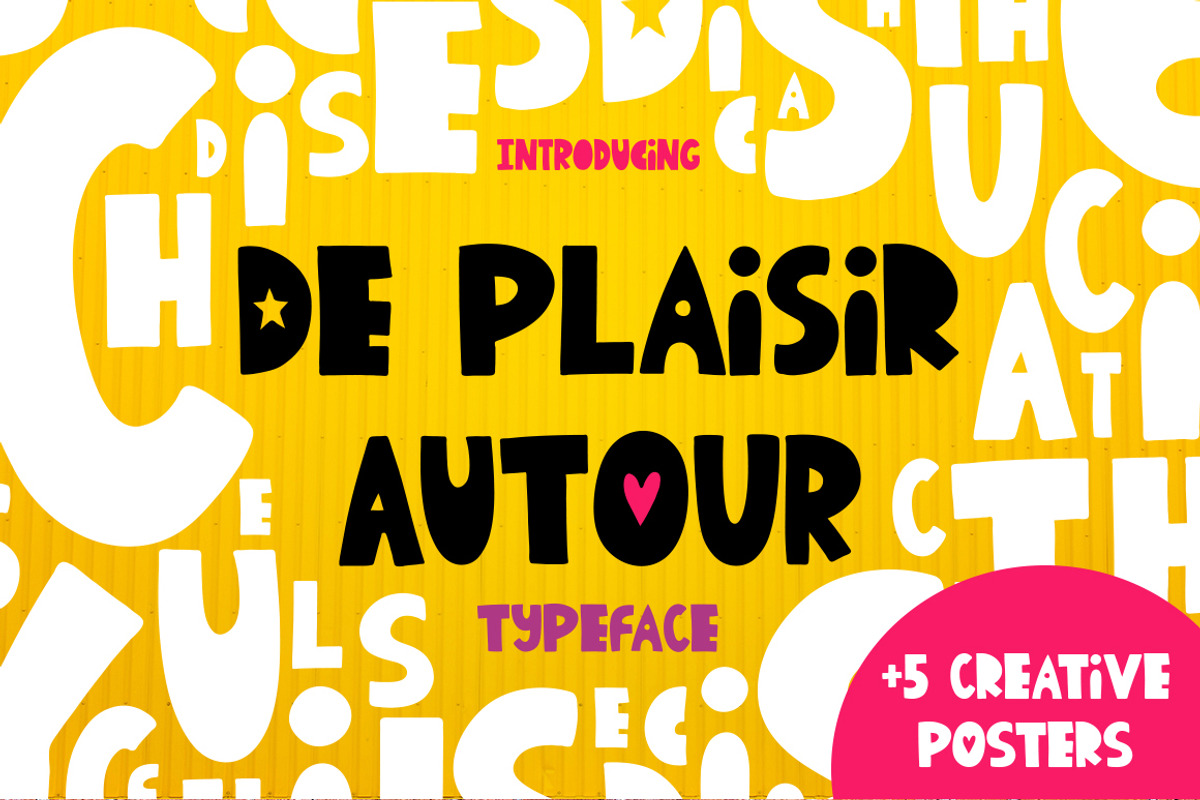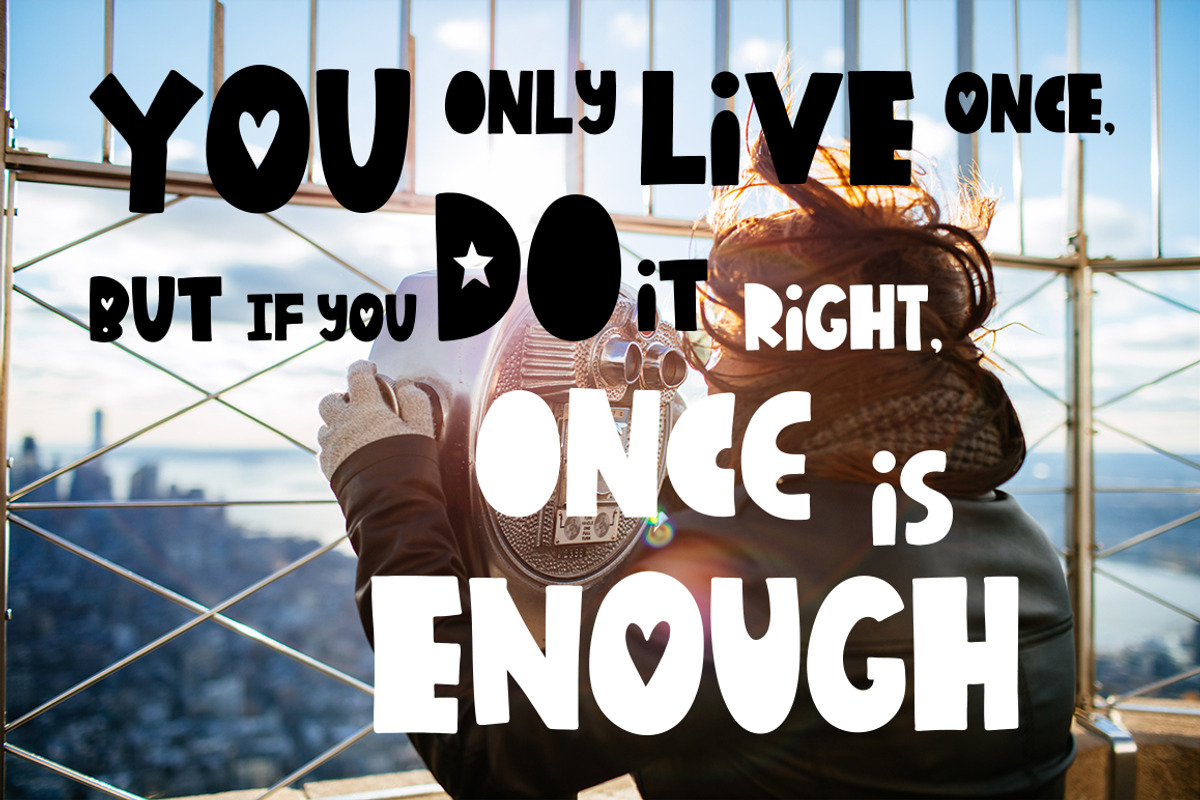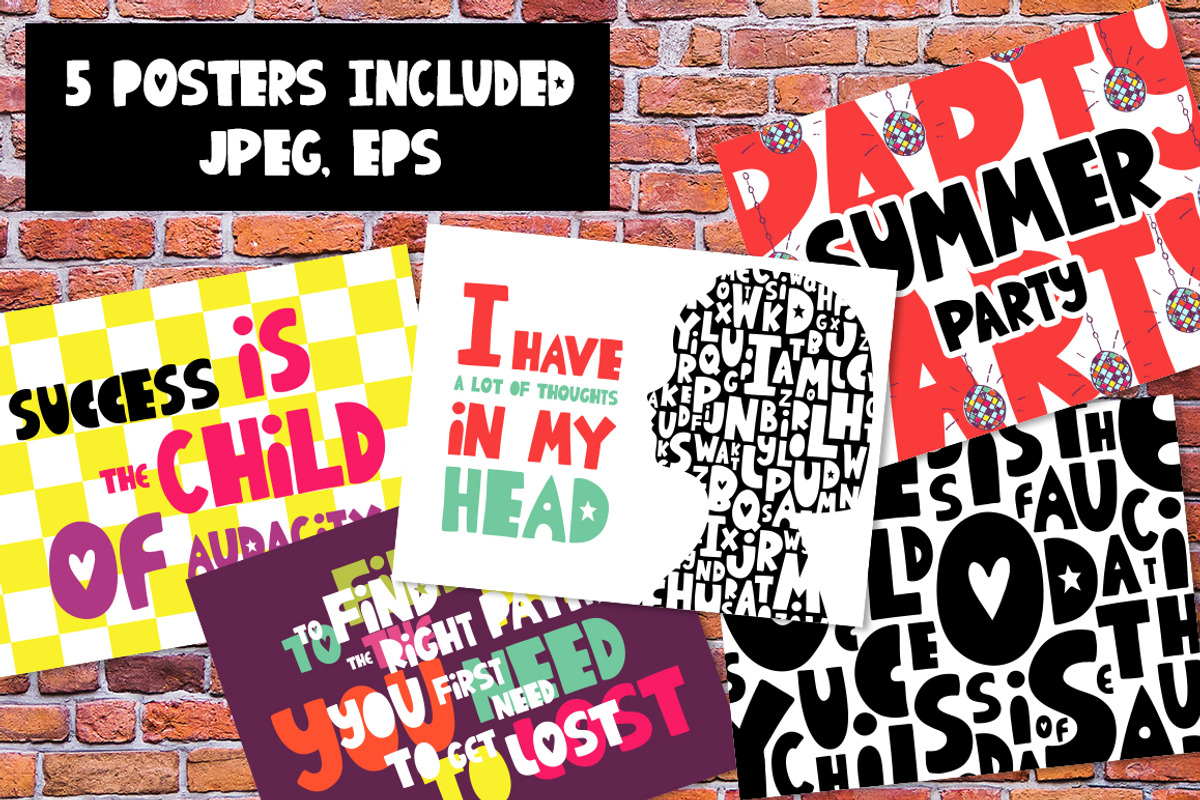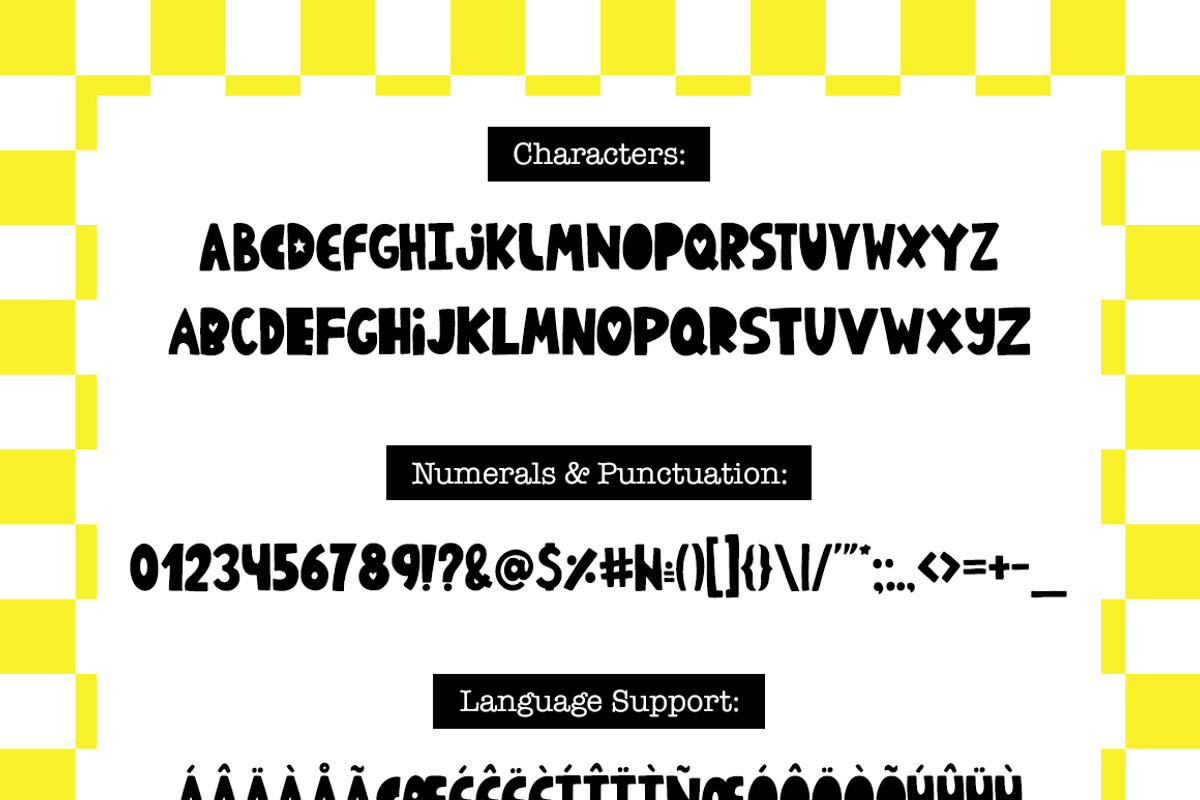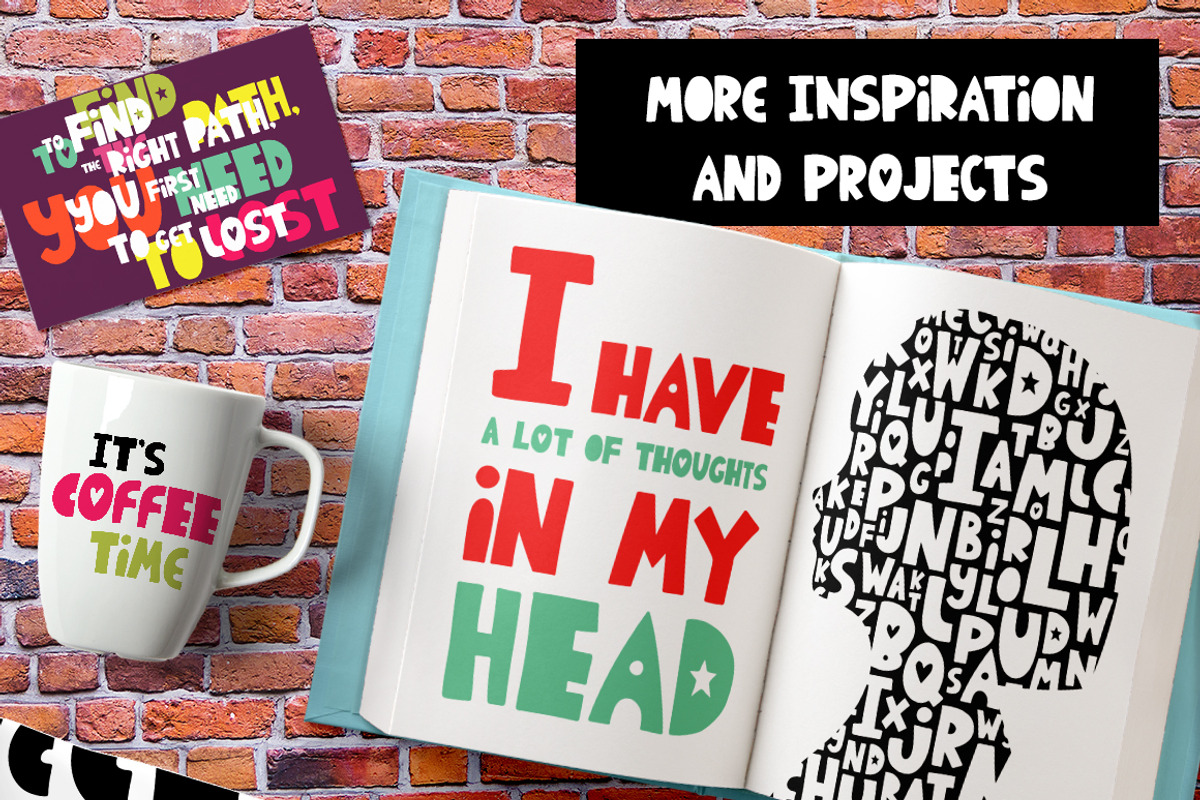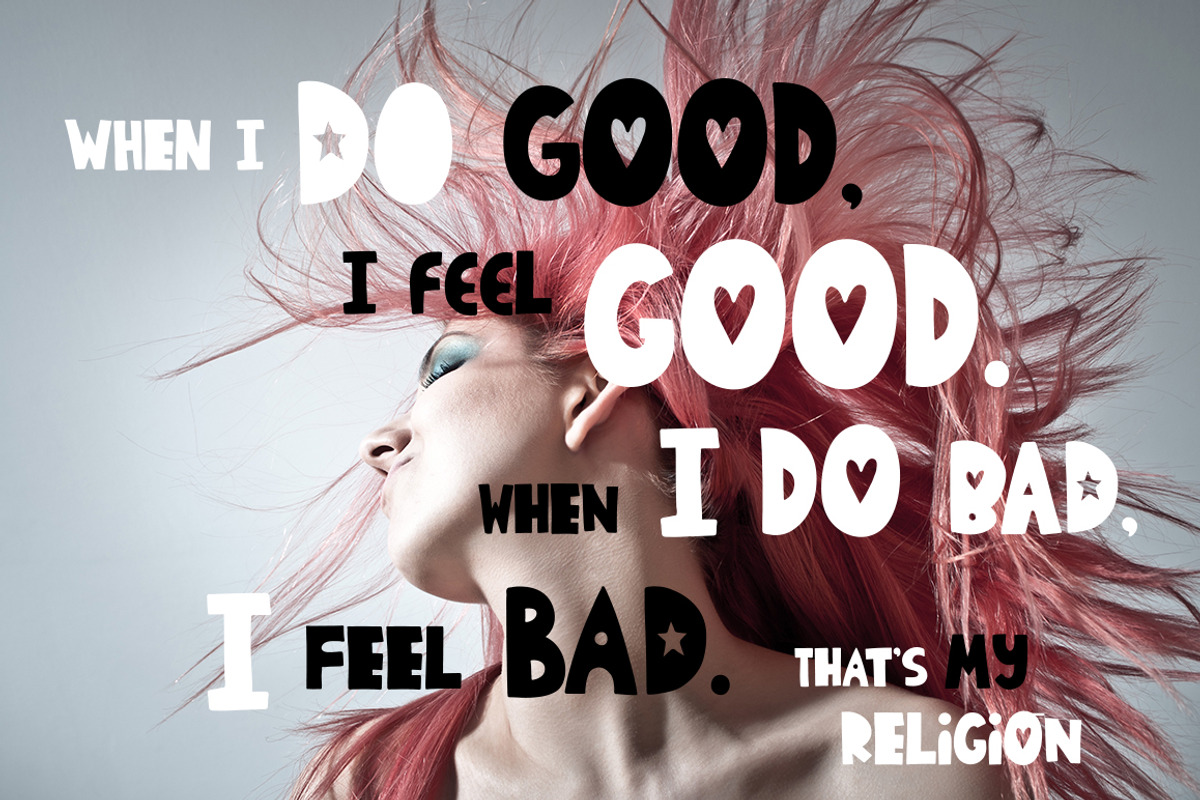
De Plaisir Autour - typeface
♥ De Plaisir Autour - Funny typeface! Font for your funny projects! ♥ This script is perfect for cards, prints, logos, invitations, arrange illustration and decoration. It has upper and lower case letters, numbers, special characters, accents.
Why De Plaisir Autour - typeface is worth a look
De Plaisir Autour - typeface by Velliniki fits naturally into Branding, posters, packaging, typography.